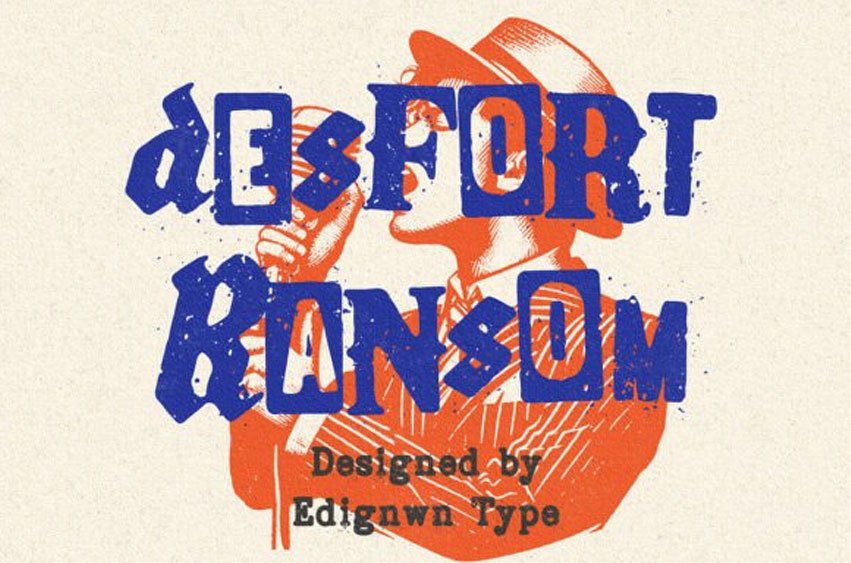
Desfort Ransom Font is a bold and rustic font designed for ransom notes.
Its rugged style makes it ideal for rock and metal music themes, giving your designs an edgy and rebellious look.